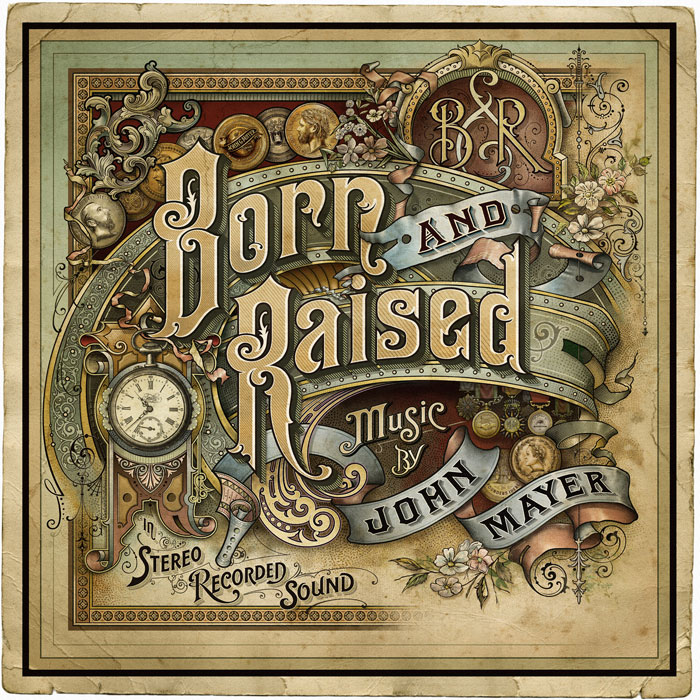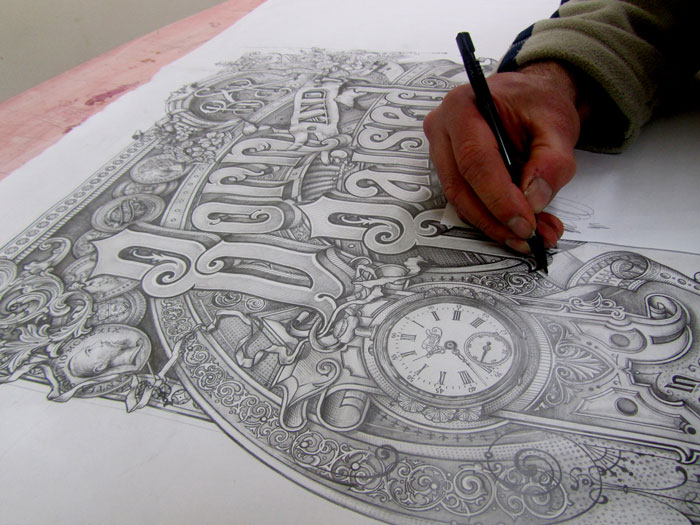
John Mayer, Born and Raised Album Cover art
Finally able to get back on(cpu stuff)...Dave, Tony couldn't have said it better...love everything, but the thing that turns my crank too, are those hand drawings...I guess its a way of seeing how your head & hand work and as Doug mentioned earlier, shows just how much study and research goes into this, something you lose when you just see it as a computer rendering....Thanks for posting, awesome...Pat
Agreed regarding the original hand drawings. It would be nice to have a cover with it done at that stage.
Dave - I didn't mean to embarrass you or make you uncomfortable with my remark. It's just the way these things sometimes strike me. I have a number of people who inspire me and who I learn from; several of them post here frequently. You are one of them and it just pushes me to be better. If I think back on where I was early in the craft and where I am now it is a little more encouraging, realizing that I've grown a bit.
"The lyf so short, the craft so long to lerne." Geoffrey Chaucer (c. 1340 - 1400)
He was actually quoting Hippocrates from a thousand years before him. The principle will be no less true for our descendants 1000 years from now.
Now I won't hold you to your poster offer, but if you happen to remember, I will treasure it!
Master Dave! I also agree and have to say Thank You Dave for the inspiration ,vision and spark! You are a true master!
Thankyou all very much ,what a nice bunch of friends to have . Dan you never embarrased me mate, I appreciate what you said and it's the same for me about all your work and others. I often think what Rick Glawson would of been turning out now ,that would be pretty amazing to see. Always trying to push boundaries with our skills. Here is an antique version of the artwork. Thank you all again....
The used card(album cover) look puts it over the top. Thanks, Dave.
Here is a nearly completed shot of the artwork.
The sketch looks great. It's larger than I had thought but I'm sure it was needed to translate the kind of detail you have into the album cover and posters.
Exciting times to come from this and other work.
Just being nosey on that pencil artwork.
Do you have some huge scanner to get the finished work onto the computer or did you then paint it and take a picture?